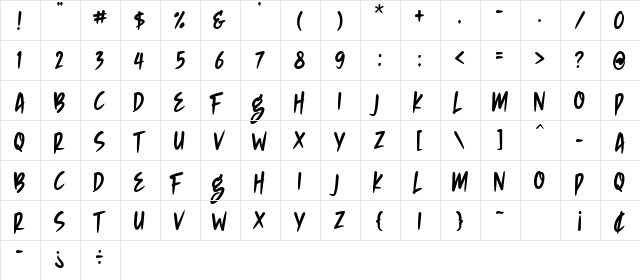
NIGHT HUNTER Regular
| Designer | Toni Dzulham |
Design Context for NIGHT HUNTER Typeface
NIGHT HUNTER is a composed and adaptable typeface that performs quietly and consistently across a wide range of design contexts.